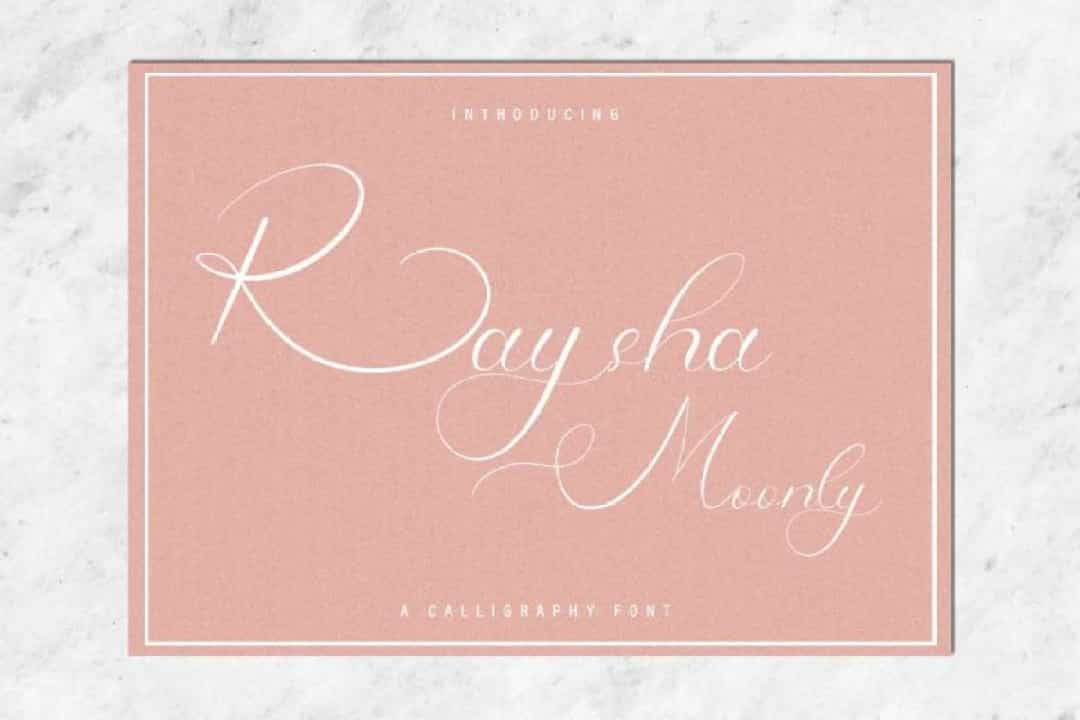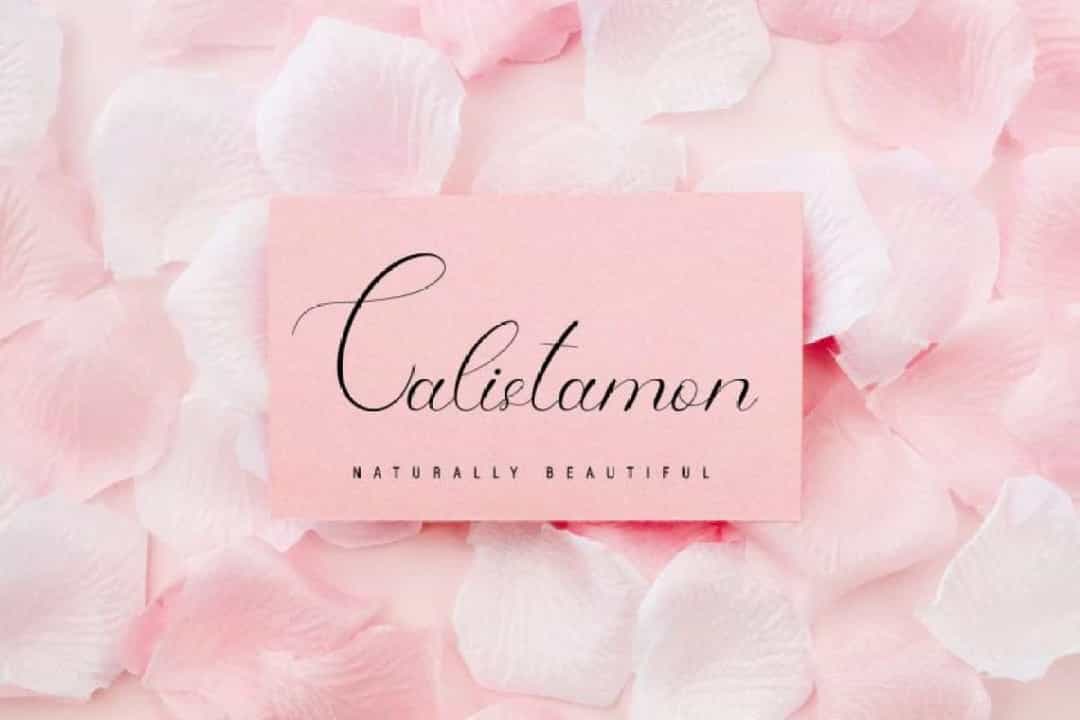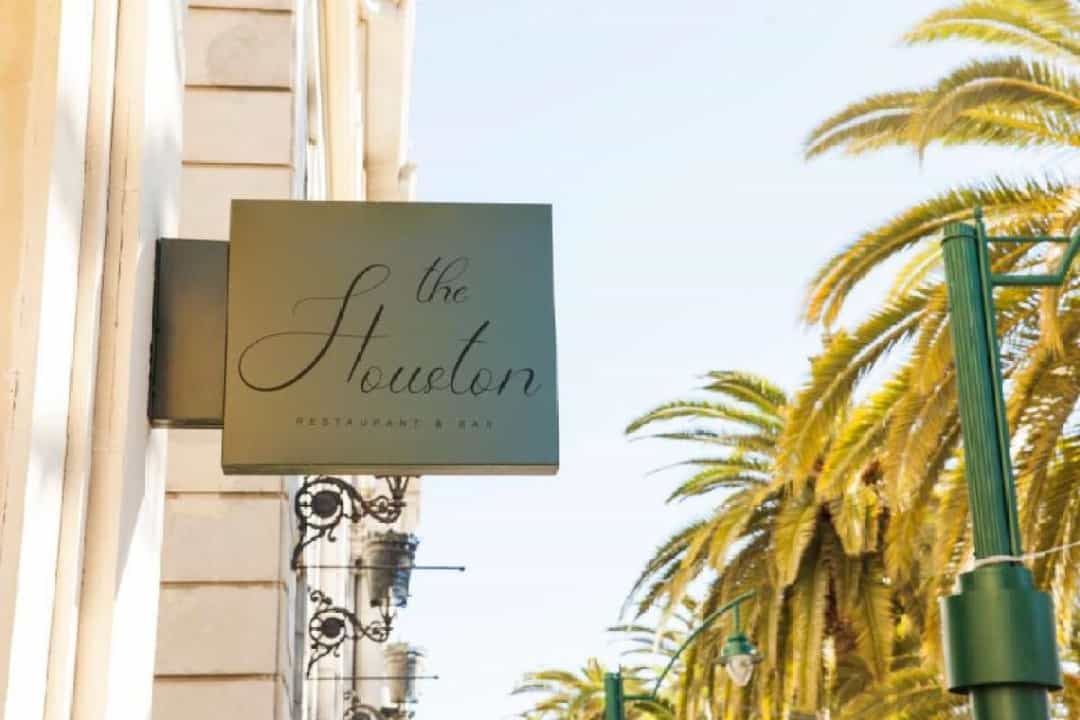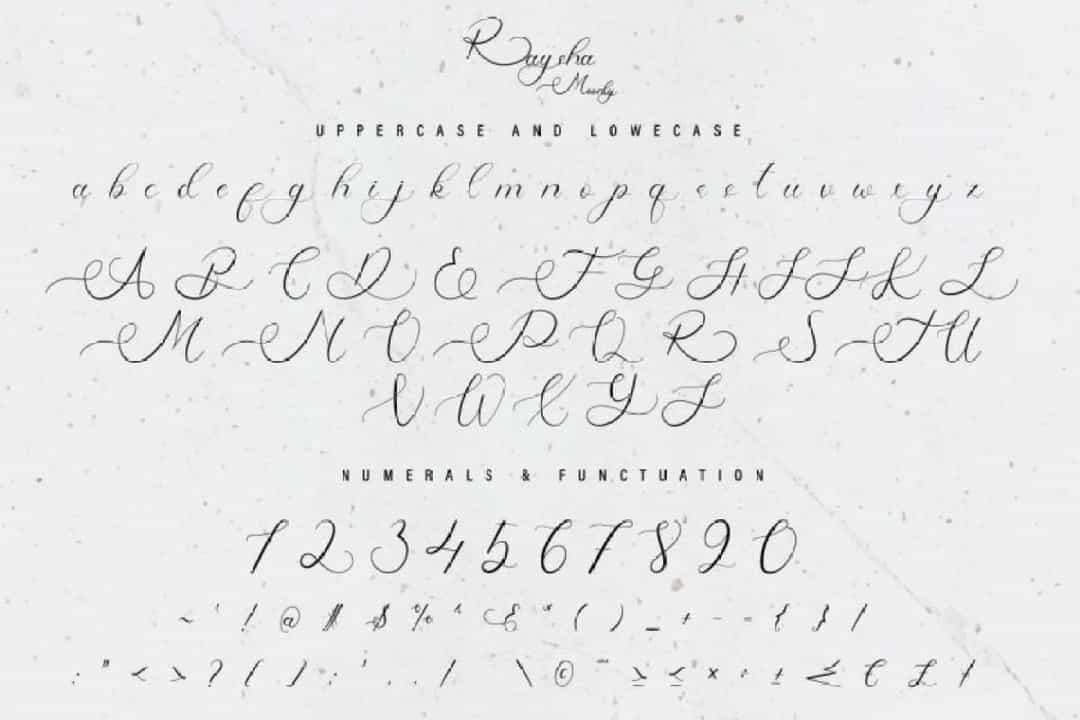
Raysha Moonly is an original script for calligraphy font with a glamorous style. The font features a stunning characters set that is perfectly crafted by kerning and spaced well. The design style of this font is elegant, luxurious, glamorous and gold. It is vintage elegant, chic, sophisticated and classical brush-style calligraphic design.